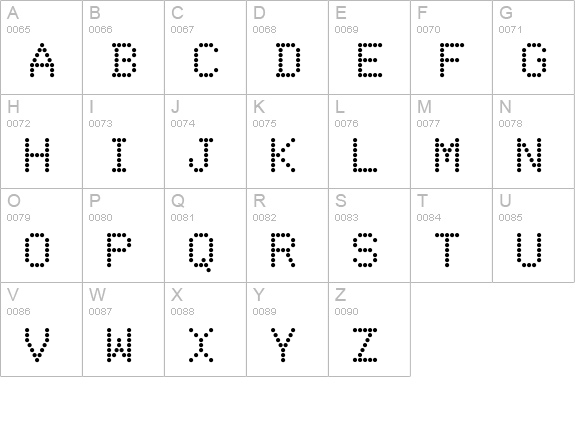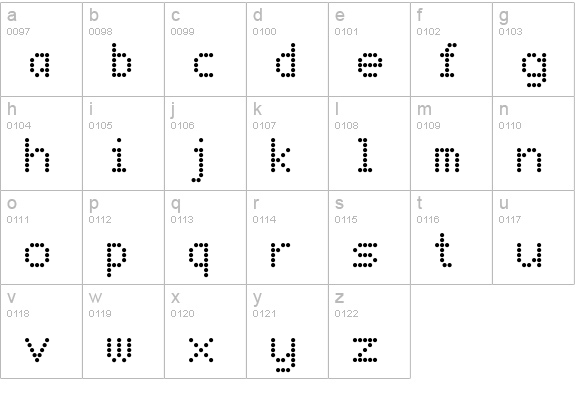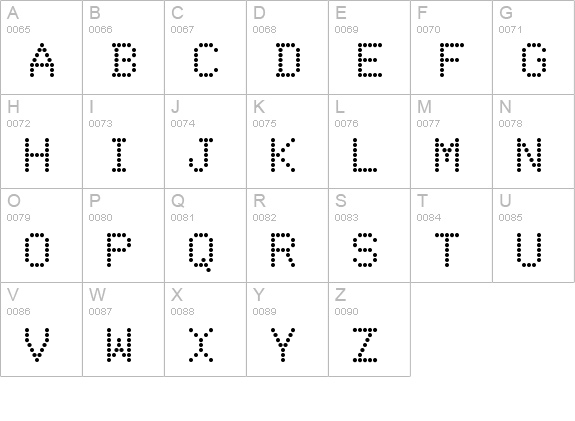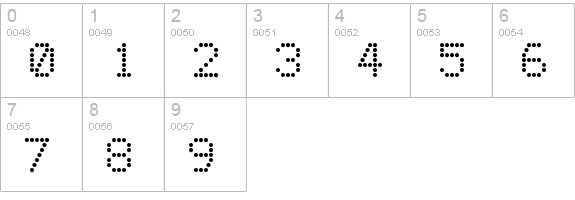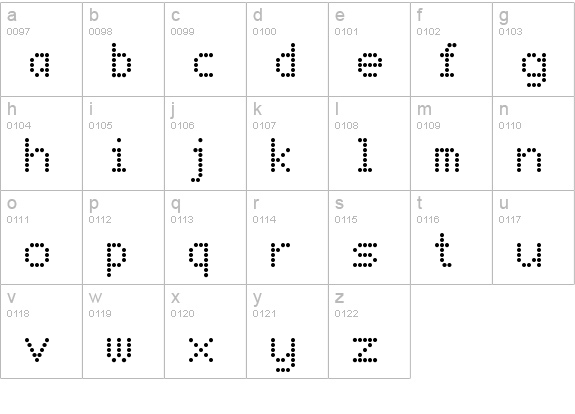
DotMatrix Font Details
DotMatrix font is a captivating and versatile typeface that brings a unique retro aesthetic to any project. Its distinctive dot pattern design gives off a nostalgic vibe reminiscent of old-school computer screens and displays. Whether you're looking to add a playful touch to your design or evoke a sense of vintage charm, DotMatrix font is the perfect choice. Best of all, DotMatrix font is available for free download at FontsMarket.com. This means you can easily access this eye-catching font and incorporate it into your designs without any hassle. With its wide range of characters and symbols, DotMatrix font offers endless possibilities for creative expression. Add a touch of nostalgia and creativity to your projects with DotMatrix font today!